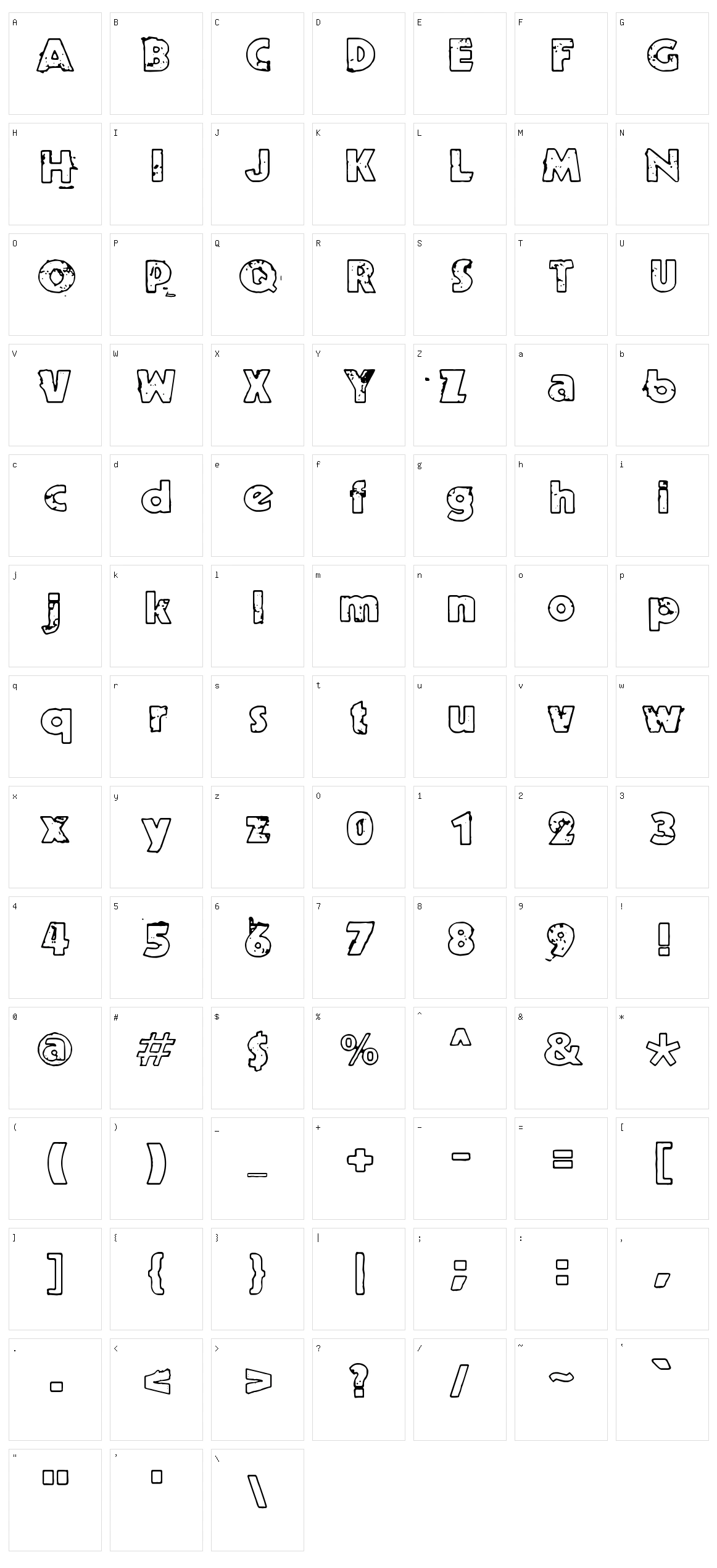
The free font Ruoste is carefully designed by junkohanhero, showcasing a thoughtful balance of creativity and usability and falls under the Eroded font style. When you download the ZIP file, it contains only 42.41 KB of font files, making it lightweight and quick to download. Please review the license details below to understand permitted usage and distribution rights. If license information is not available, we recommend using this font for personal projects only or contacting the author directly for commercial usage permissions.